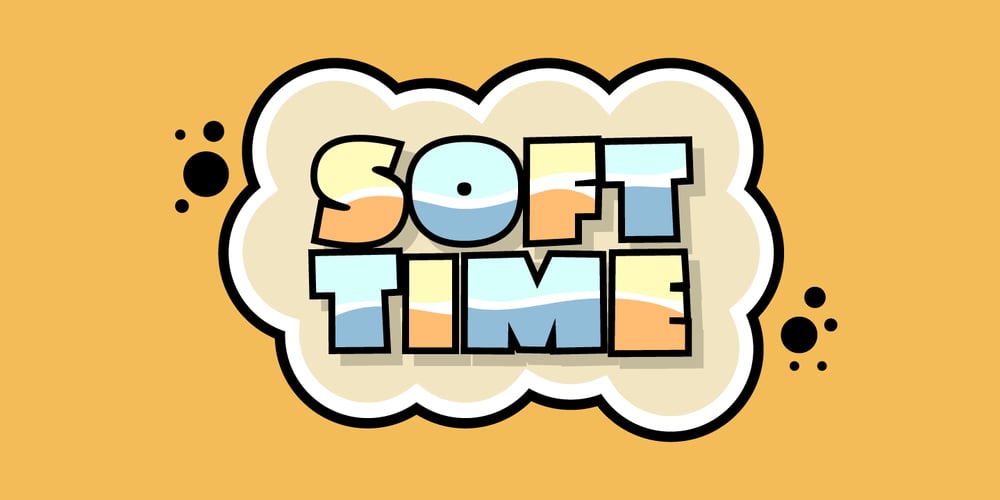
Soft Time
Soft Time font
Soft Time Font Family was designed by Jakob Fischer and published by PizzaDude.dk. Soft Time contains 2 styles and family package options. Soft Time is an updated and cleaner version of my popular font Soft Lime. Soft Time has kept the bold and happy look that came with Soft Lime.Caps only fonts